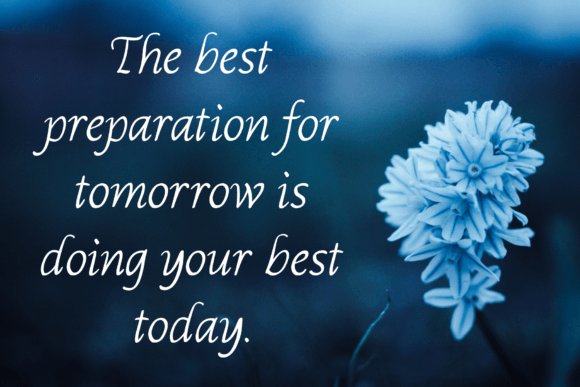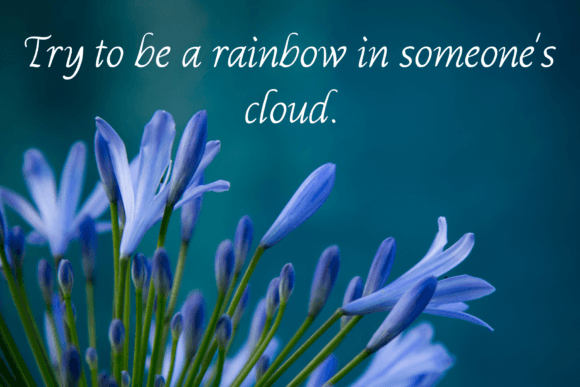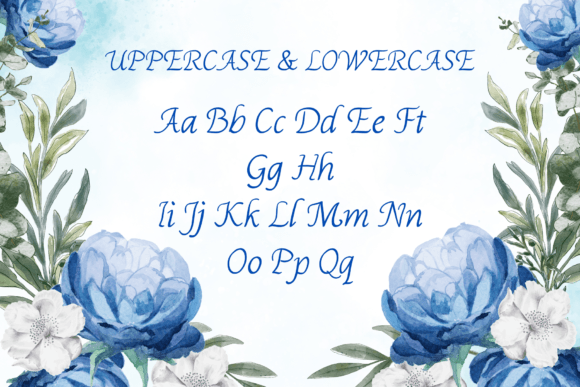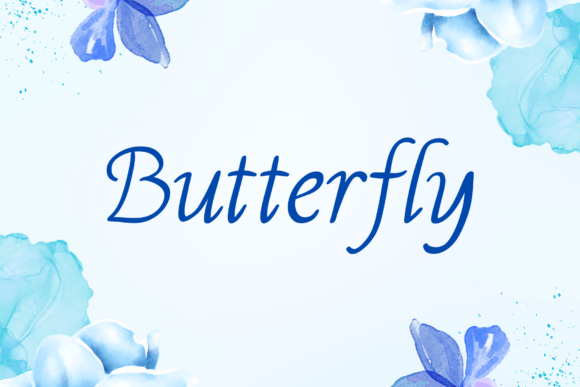
The Whimsical World of Butterfly Font: Adding Playfulness to Your Designs
In the realm of typography, few fonts capture the essence of whimsy and playfulness as effortlessly as the Butterfly font. This script font is a delightful addition to any design project that requires a touch of fun and carefree spirit. With its fluid strokes and varying weights, Butterfly font creates a sense of movement and energy, making it an ideal choice for designers and crafters looking to infuse their work with a dash of personality.
Characteristics of Butterfly Font
Butterfly font is a script font that boasts a range of characteristics that set it apart from other typography styles. Some of its key features include:
- Fluid strokes: The fluid strokes of Butterfly font give it a sense of movement and fluidity, making it perfect for designs that require a dynamic and energetic feel.
- Varying weights: The varying weights of the font add depth and dimension to the text, creating a visually appealing effect that draws the reader in.
- Whimsical feel: The overall whimsical feel of Butterfly font makes it an excellent choice for designs that require a playful and carefree vibe.
Use Cases for Butterfly Font
Butterfly font is a versatile typography style that can be used in a range of design projects. Some of the most popular use cases for this font include:
- Children’s books: The playful and whimsical feel of Butterfly font makes it an excellent choice for children’s books, where it can help bring stories to life and engage young readers.
- Greeting cards: The carefree spirit of Butterfly font makes it perfect for greeting cards, where it can add a touch of personality and whimsy to the design.
- Packaging for artisanal products: The unique and playful feel of Butterfly font makes it an excellent choice for packaging artisanal products, such as handmade crafts or specialty foods.
- Branding and advertising: Butterfly font can also be used in branding and advertising campaigns, where it can help create a fun and approachable tone.
Tips for Using Butterfly Font Effectively
To get the most out of Butterfly font, here are a few tips to keep in mind:
- Use it sparingly: While Butterfly font is playful and whimsical, it can be overwhelming if used excessively. Use it sparingly to add a touch of personality to your design.
- Pair it with contrasting fonts: Pairing Butterfly font with contrasting fonts can help create visual interest and add depth to your design.
- Experiment with colors and textures: Butterfly font looks great in a range of colors and textures. Experiment with different combinations to find the one that works best for your design.
Butterfly font is a delightful addition to any design project that requires a touch of whimsy and playfulness. With its fluid strokes, varying weights, and carefree spirit, this script font is perfect for designers and crafters looking to infuse their work with personality and energy. Whether you’re creating children’s books, greeting cards, or packaging for artisanal products, Butterfly font is sure to bring a smile to your audience’s face.